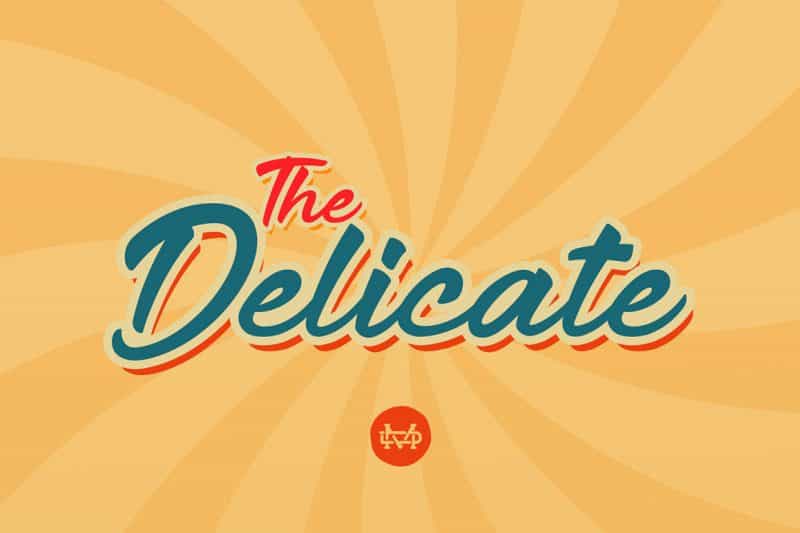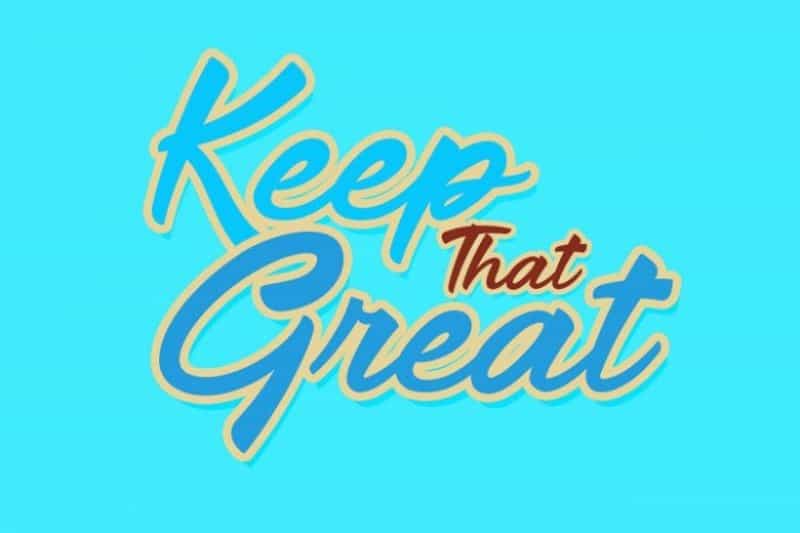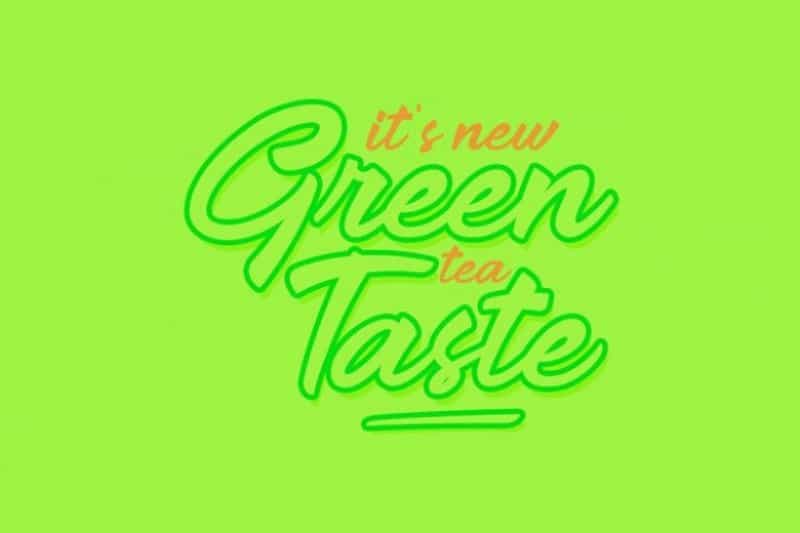
Discover The Delicate Script Font, part of the Brush collection—a versatile and unique font perfect for adding a personal touch to your projects. Download it for free and enjoy crafting designs with style, from invitations to social media posts. This font is available exclusively for personal use, giving you the freedom to create without limits. Unlock your creativity with The Delicate Script Font today!
The Delicate is a typical bold script and is a sufficient for all your designs project, event and more.